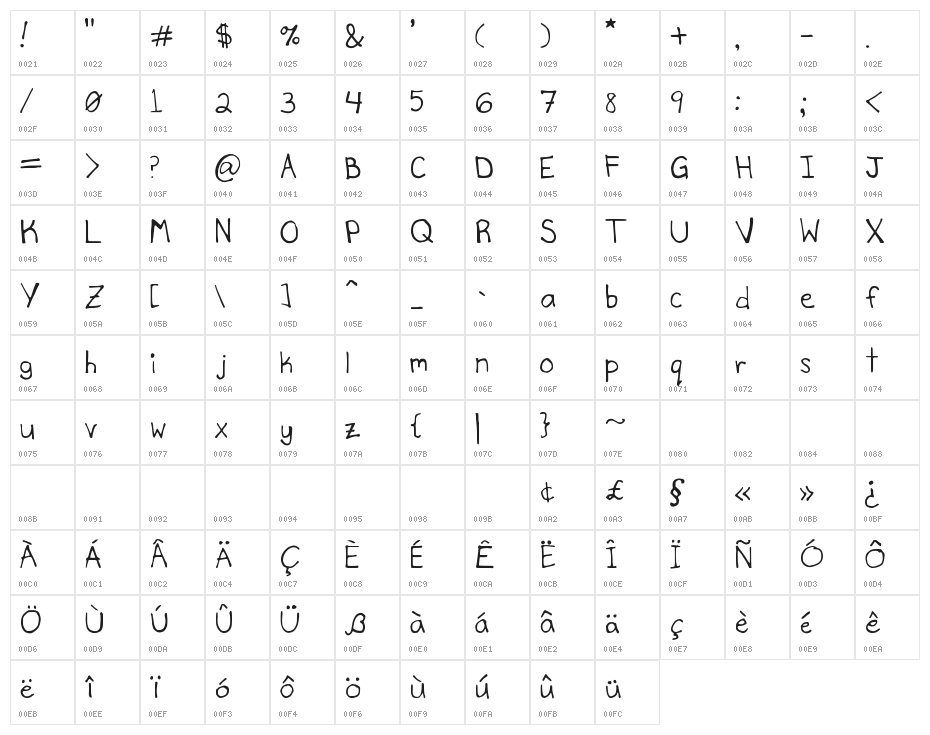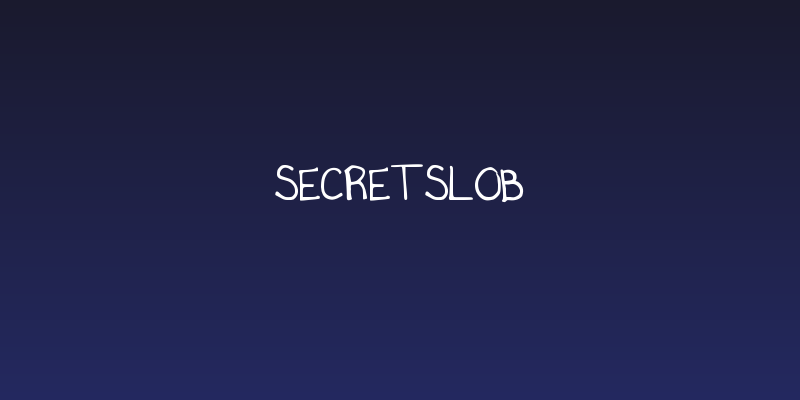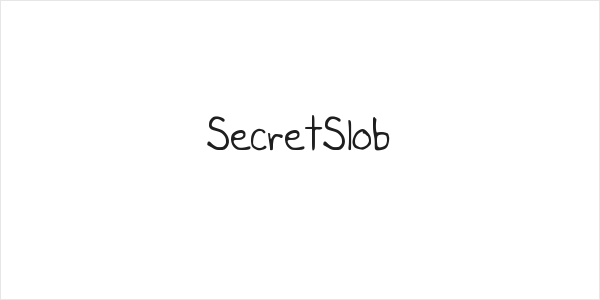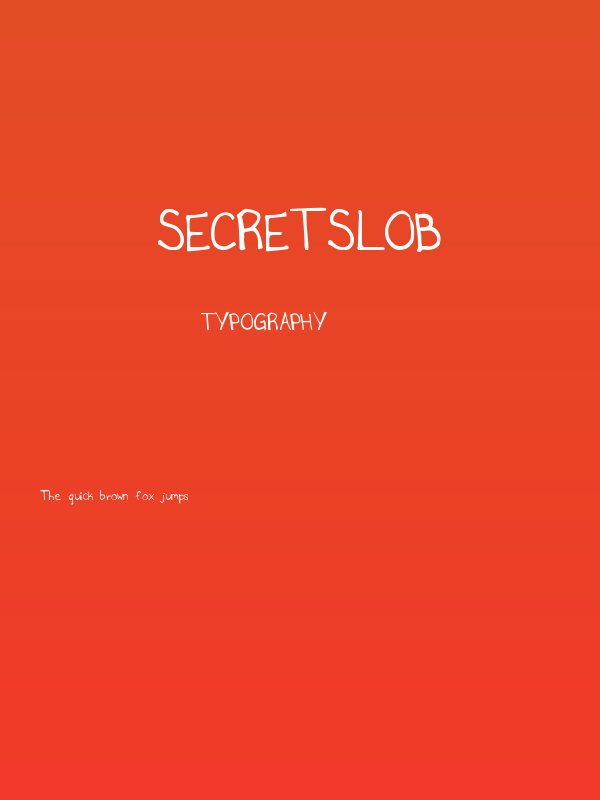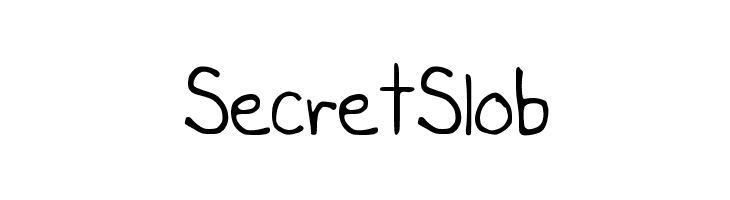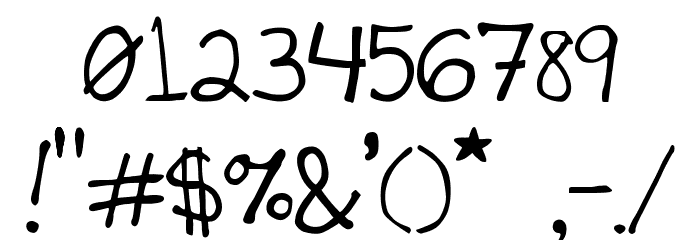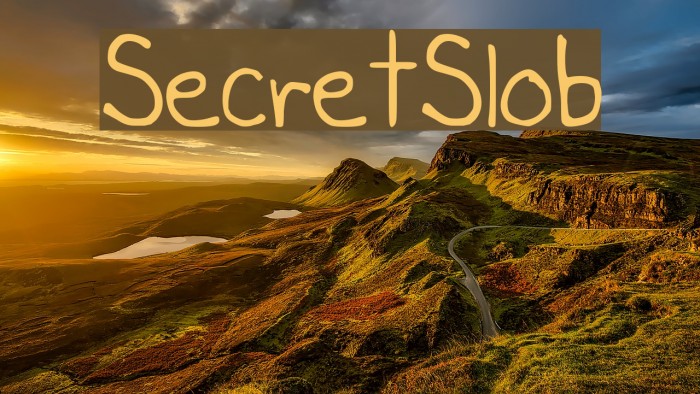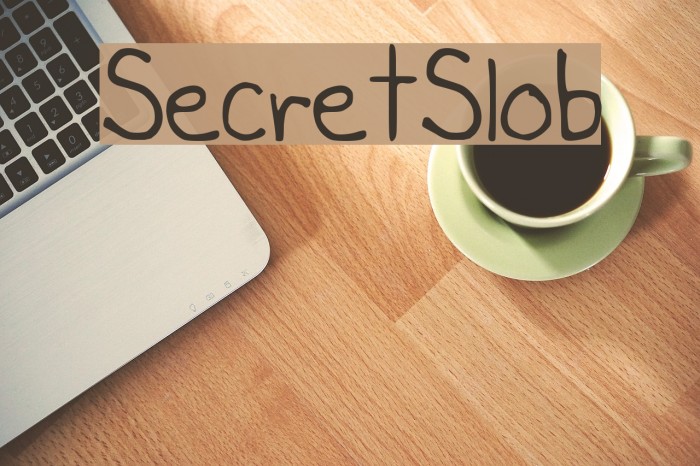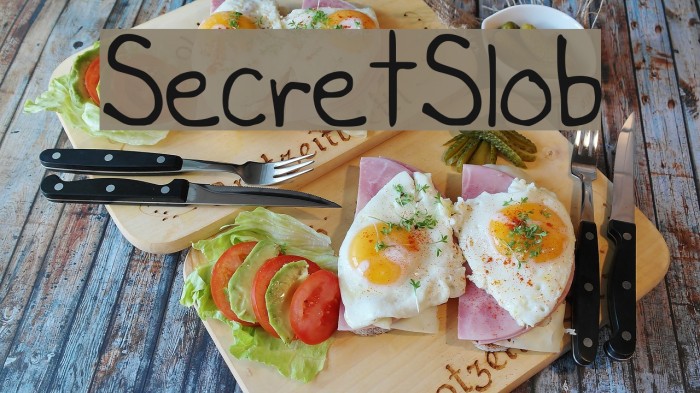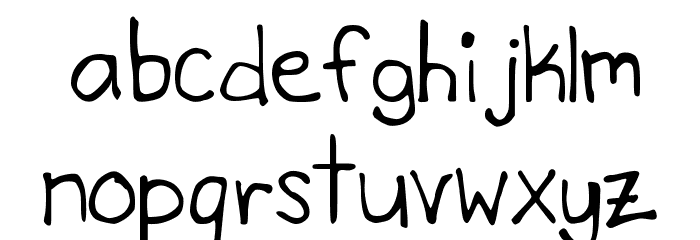
SecretSlob Font
SecretSlob Description
This font features a playful and informal handwritten style, characterized by its uneven strokes and casual appearance. The letters have a slightly irregular baseline, giving them a whimsical and approachable feel. The uppercase and lowercase letters are distinct yet maintain a consistent style, with rounded edges and a relaxed form. Numbers and special characters follow the same playful aesthetic, making this font suitable for creative and informal projects. The overall look is friendly and inviting, perfect for adding a personal touch to any design.
| Use Case | Headlines, Logos, Informal text |
| Proposed Projects | Ideal for children's books, greeting cards, casual invitations, and playful branding. |